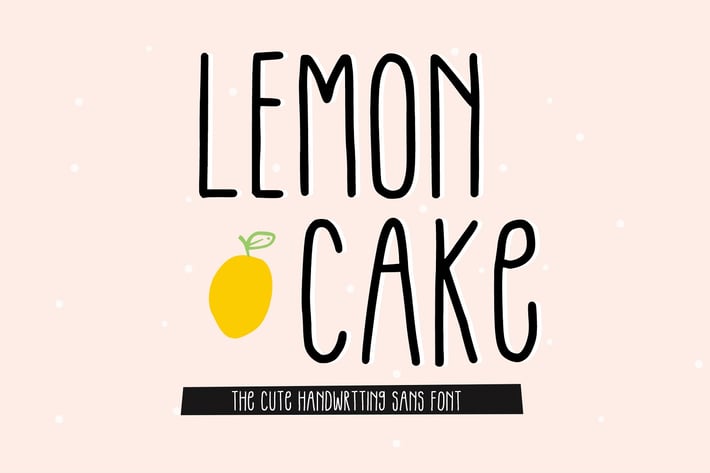
Lemon Cake - The Cute Handwriting Sans Font
With its bold colours and spindly letter shapes, Lemon Cake is perfect for your project design. The tall, all-caps typeface comes with lots of bouncy glyphs and plenty of diacritics for you to have fun with. This font is easy to read and looks playful, plus it comes with extensive language support.